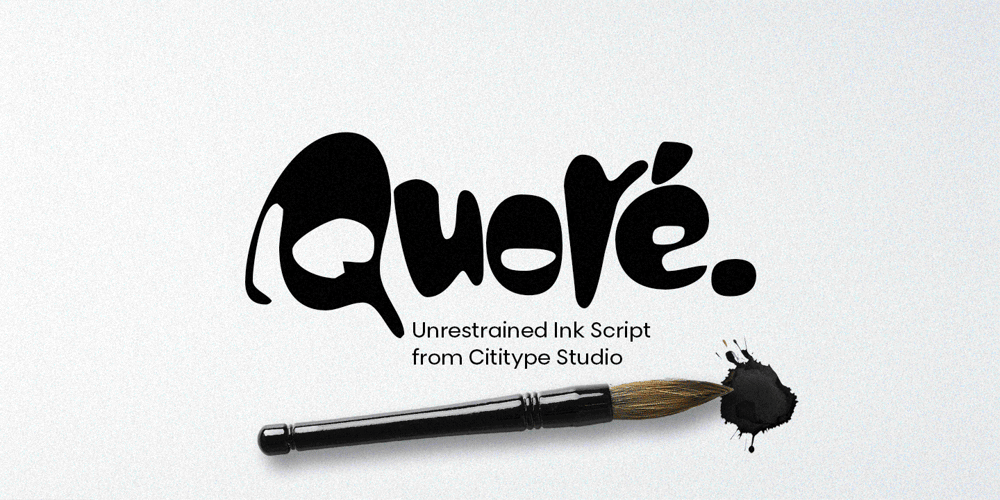
Quore
Quore font
Quore Font Family was designed by Muhammad Ridha Agusni, Siti Saribanon Nurjannah and published by Cititype. Quore contains 1 styles and family package options. Quore is a bold yet graceful typeface that captures the natural flow of ink, reflecting the beauty of hand-drawn lettering. Its organic curves and fluid strokes create a sense of warmth and authenticity, making it perfect for adding personality to any project. Whether for branding, headlines, or creative designs, Quore offers a unique balance of artistry and readability.